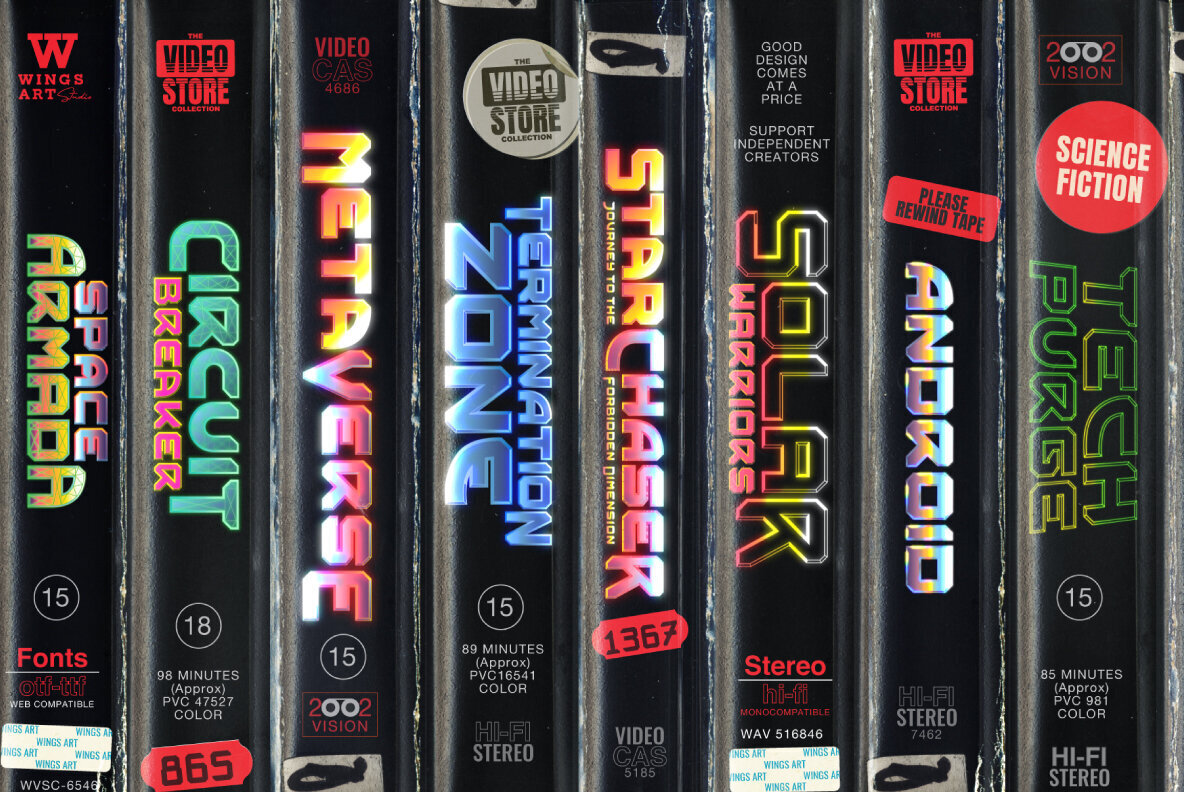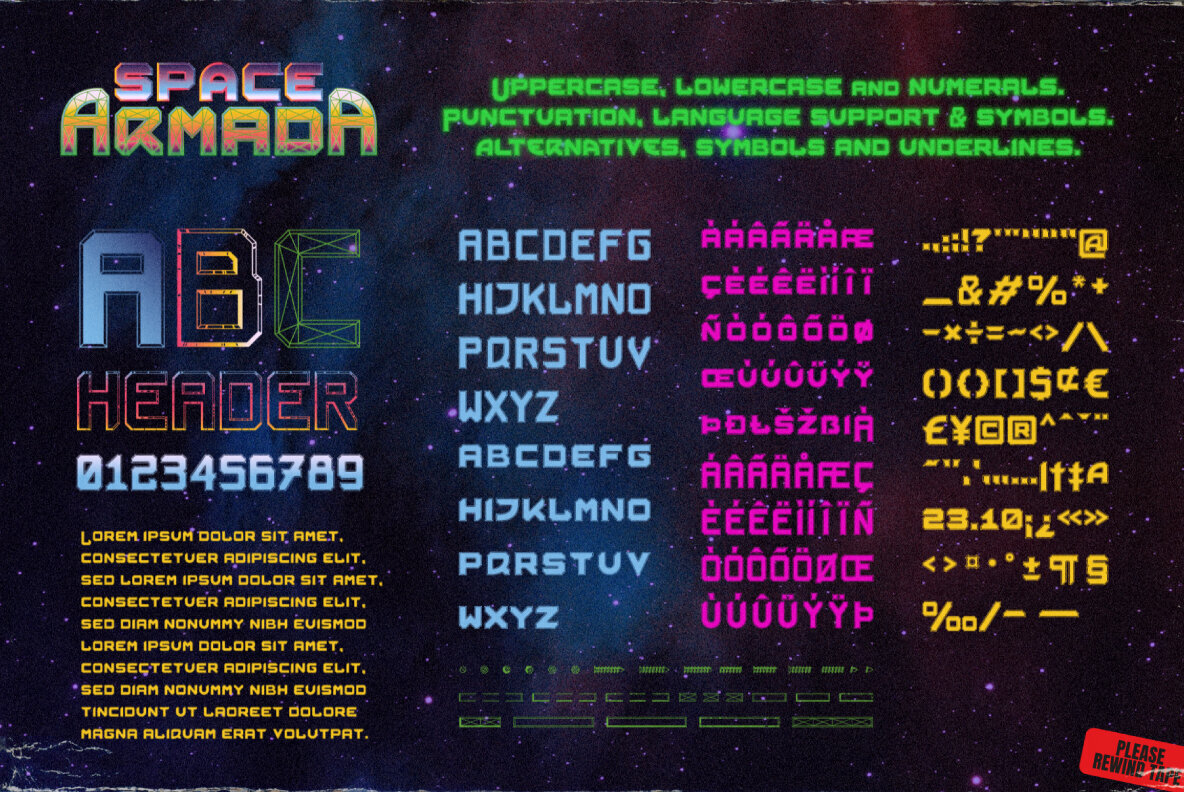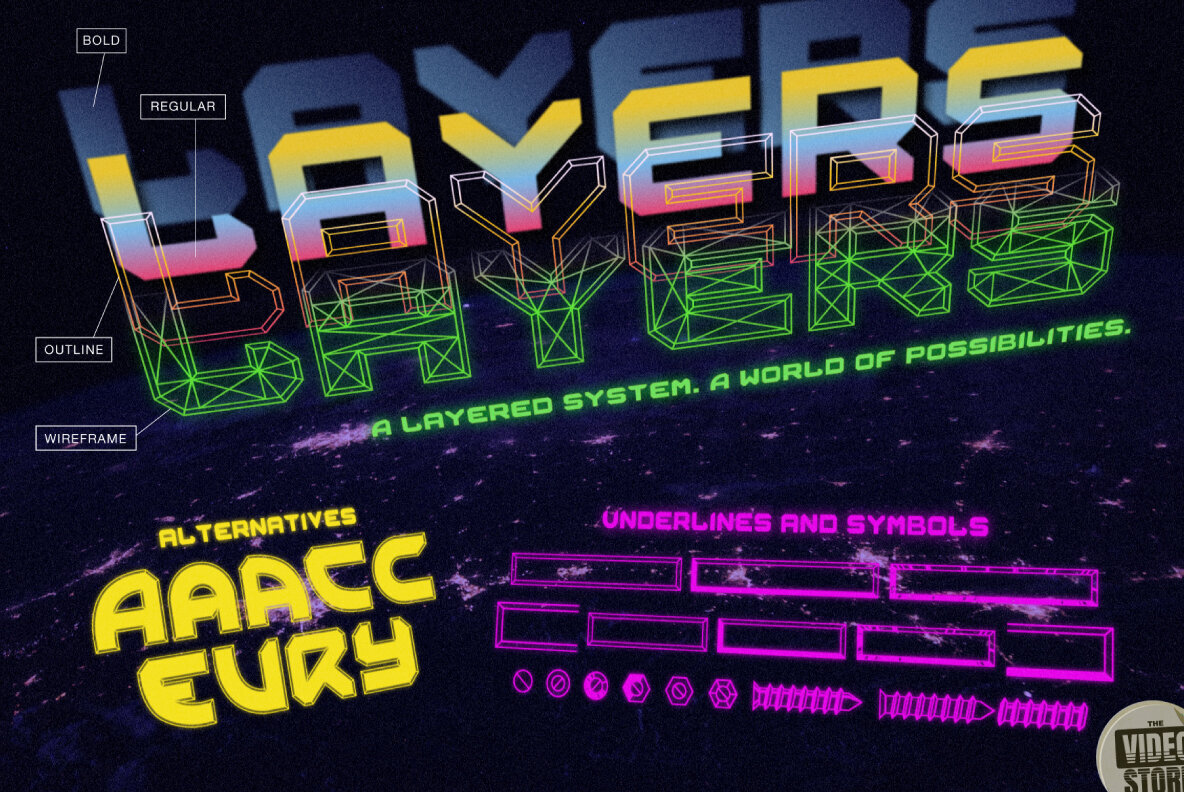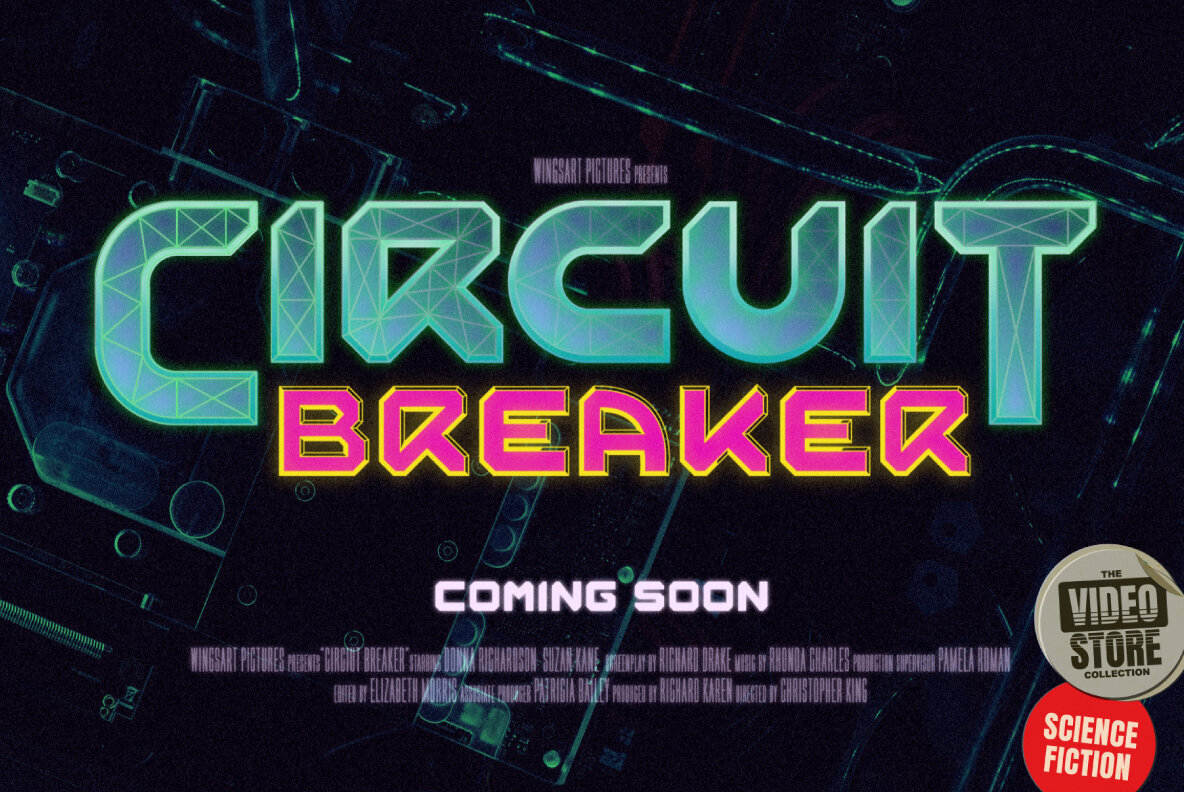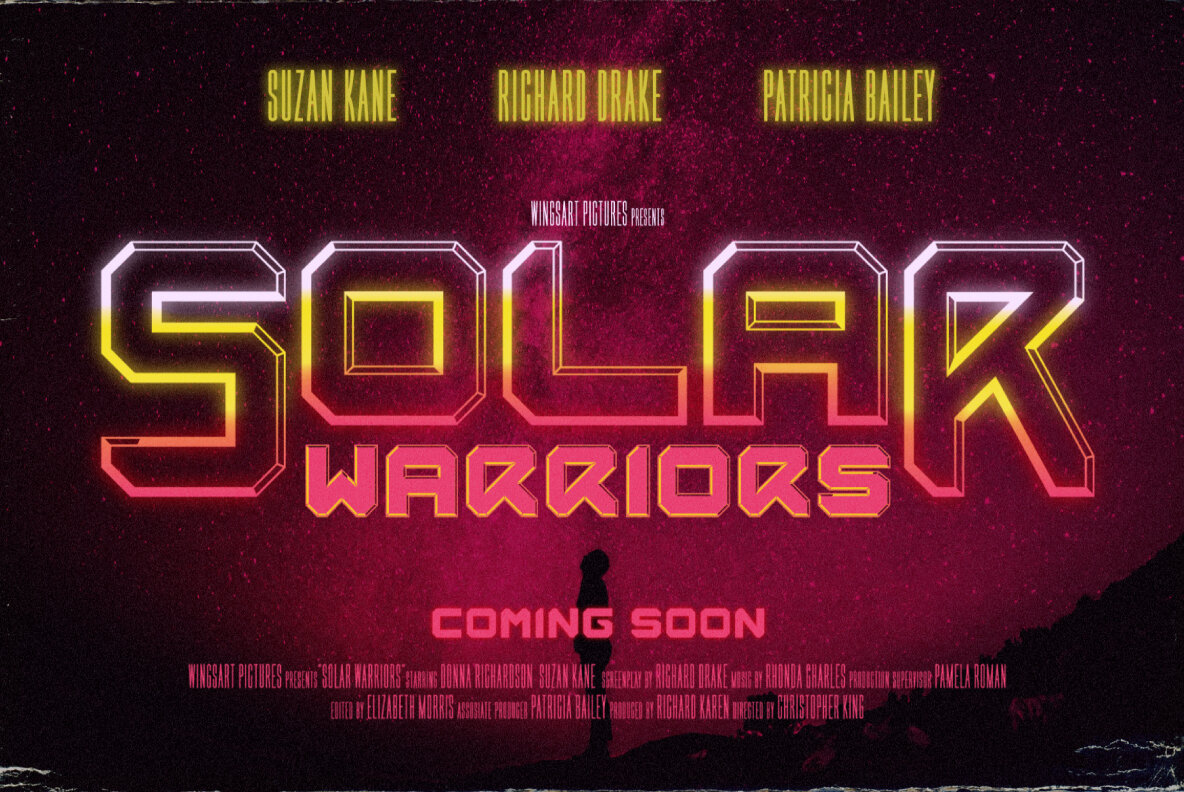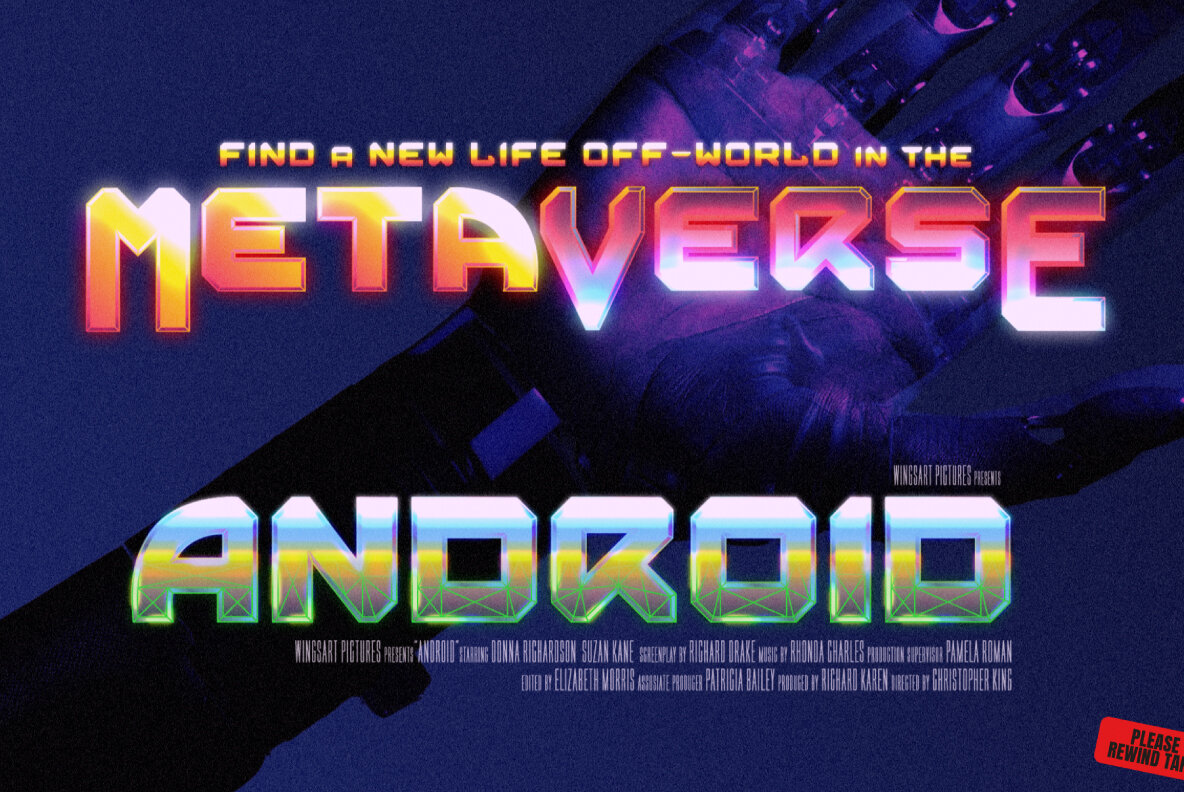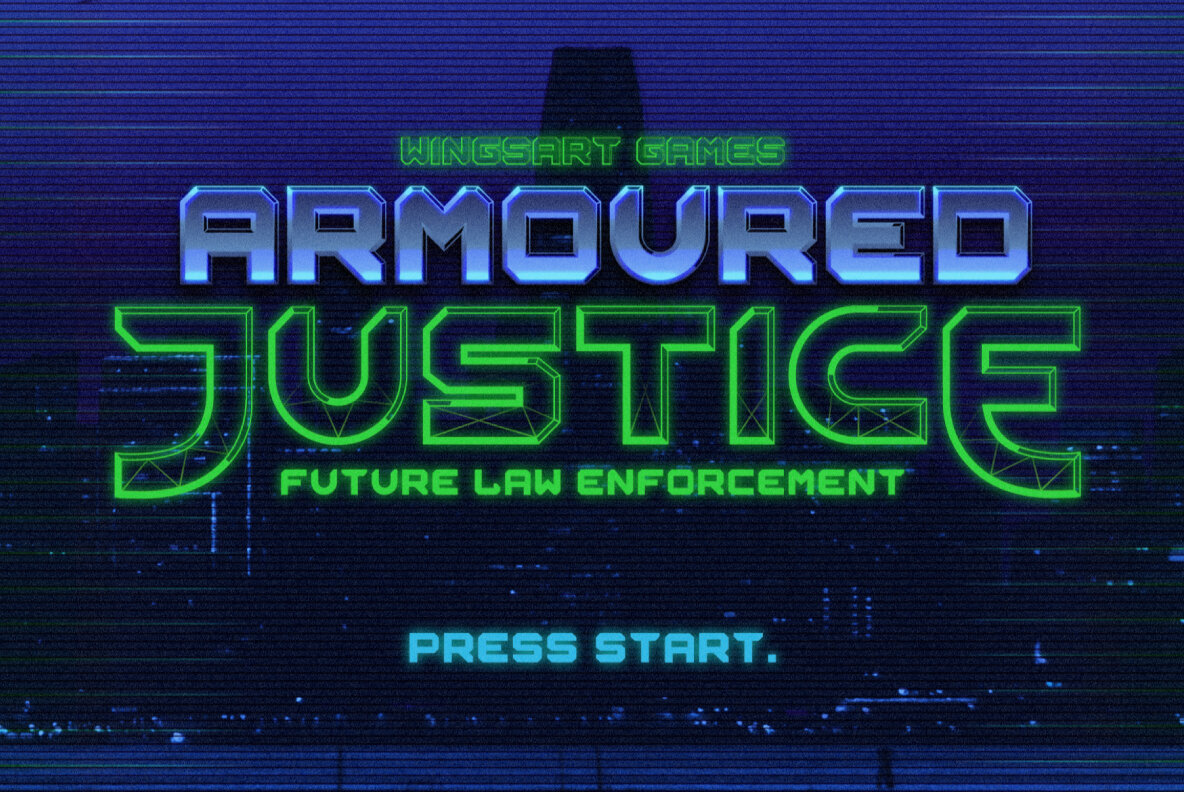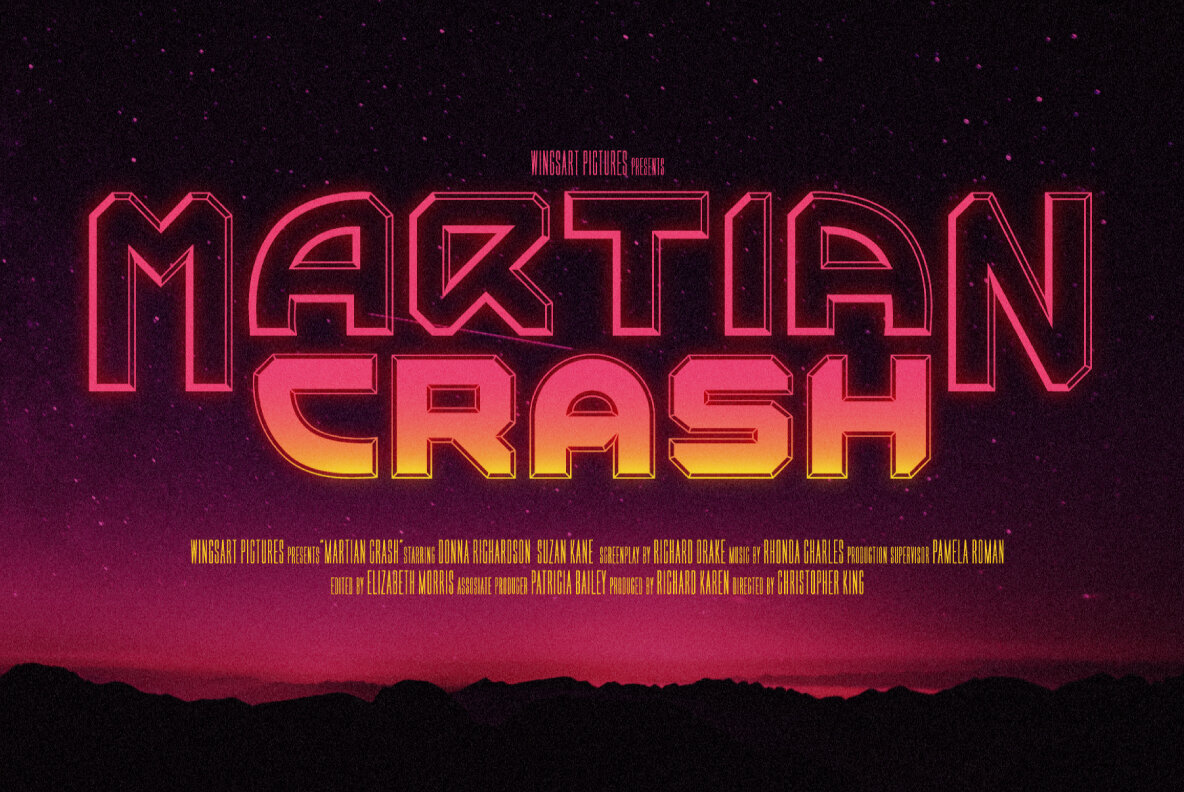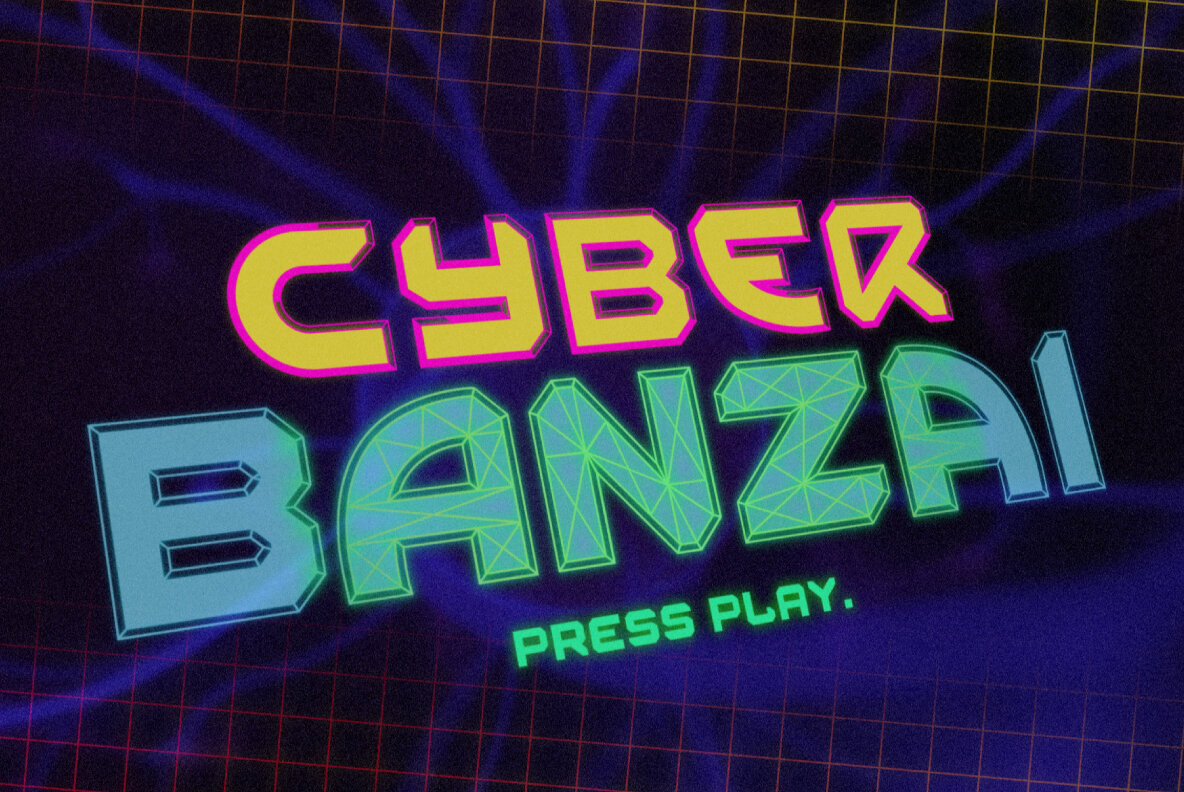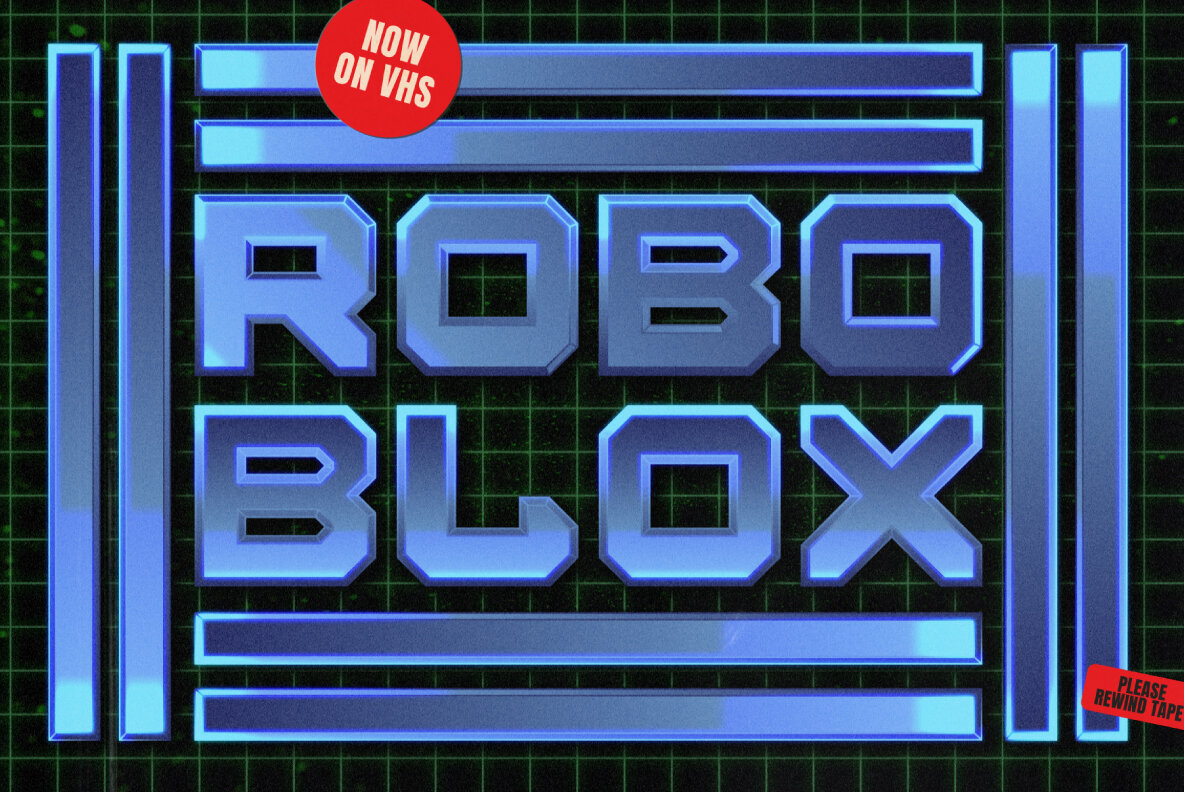
Space Armada Font
Space Armada - A Science-Fiction Font for Out of this World Designs!
Space Armada is inspired by a 1980s interpretation of the future, referencing blockbuster sci-fi action movies of the period, along with the emerging video-game consoles and home computer technologies.
It's nine unique fonts are designed to work together in a variety of ways, so you can layer it's different styles on top of each other to retro-futuristic effect!*
Here's an example of how it works:
1. Start by placing the Regular font on top of the Bold for a simple base outline.
2. Add contrasting gradients to both fonts for an instant metallic or chrome effect.
3. Take it a step further with one of the readymade Outlines for an embossed look.
4. Overlay the Wireframe font for a glimpse inside the machine! This looks particularly good when you apply a glow effect and reduce it's opacity so the other layers show through.
That's just one way to use it. Check out my visuals for more usage ideas!
Space Armada is an all-caps font with unique uppercase and lowercase characters, along with a range of alternatives for experimentation with different looks. It also includes punctuation, numerals and language support, plus a selection of underlines and symbols. It's a highly customisable font, perfect for retro designs such as movie titles, posters, games, book covers and more!